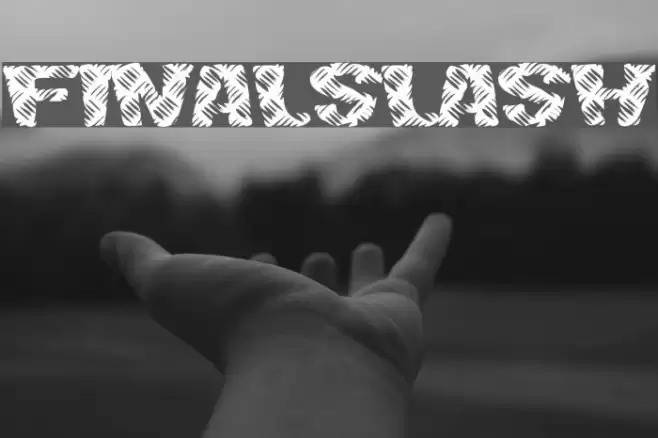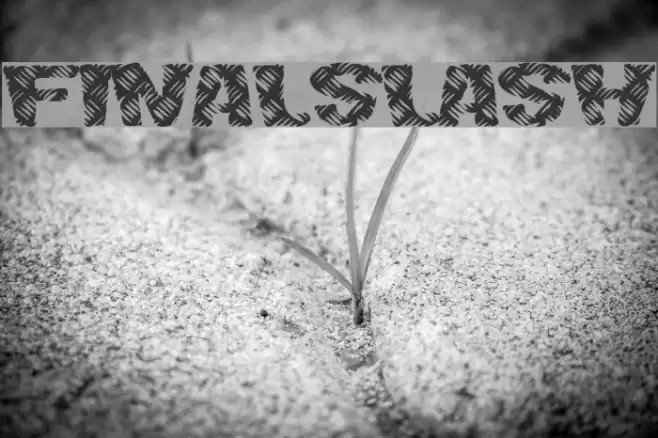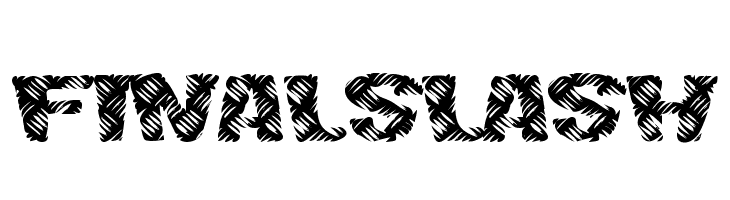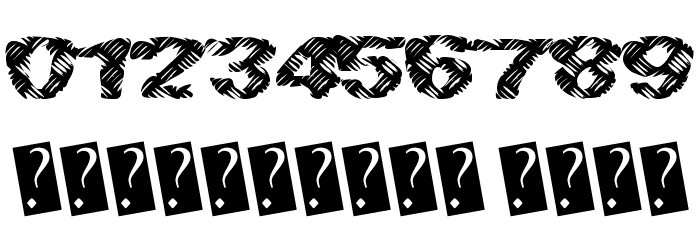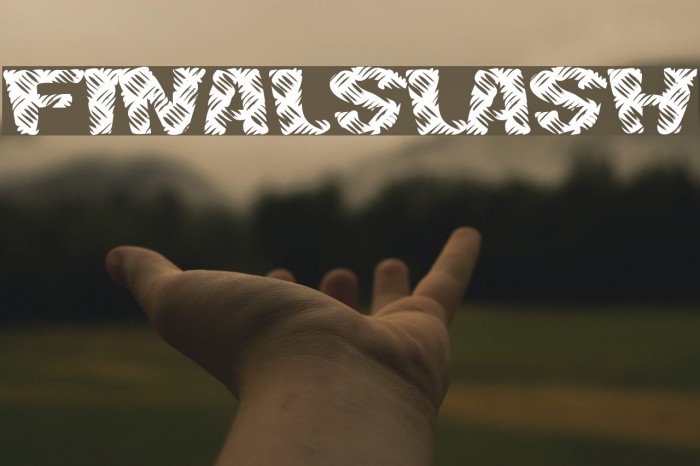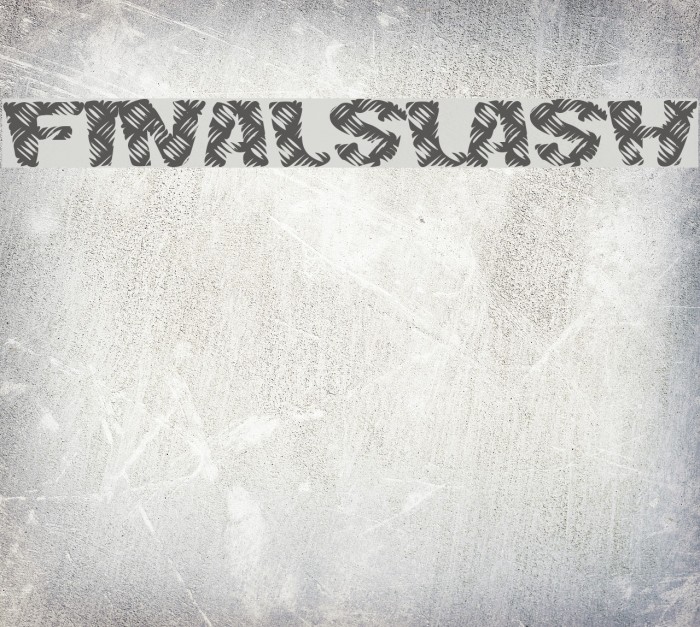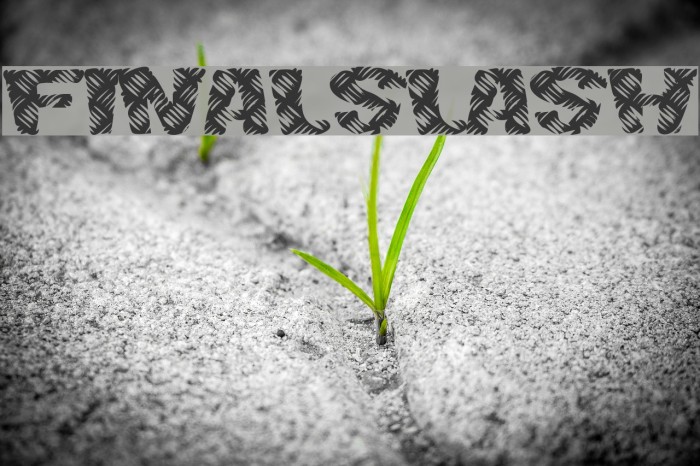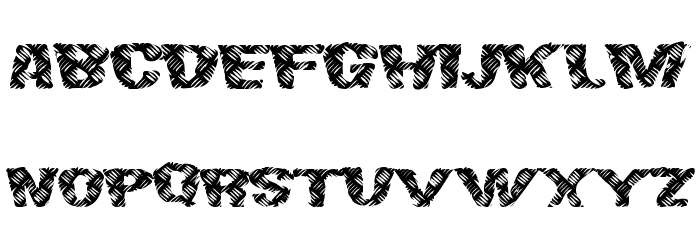
FinalSlash Font
FinalSlash Description
This font features a bold, decorative style with a unique slashed pattern running diagonally through each character. The uppercase and lowercase letters maintain a consistent design, creating a cohesive look. The numerals and special characters follow the same pattern, ensuring uniformity across all elements. The font's distinct style makes it stand out, with each character appearing as if it has been carefully carved or etched. This gives the font a dynamic and energetic feel, suitable for projects that require a strong visual impact.
A bold, decorative font with a unique slashed pattern for dynamic visual impact from Decorative fonts.